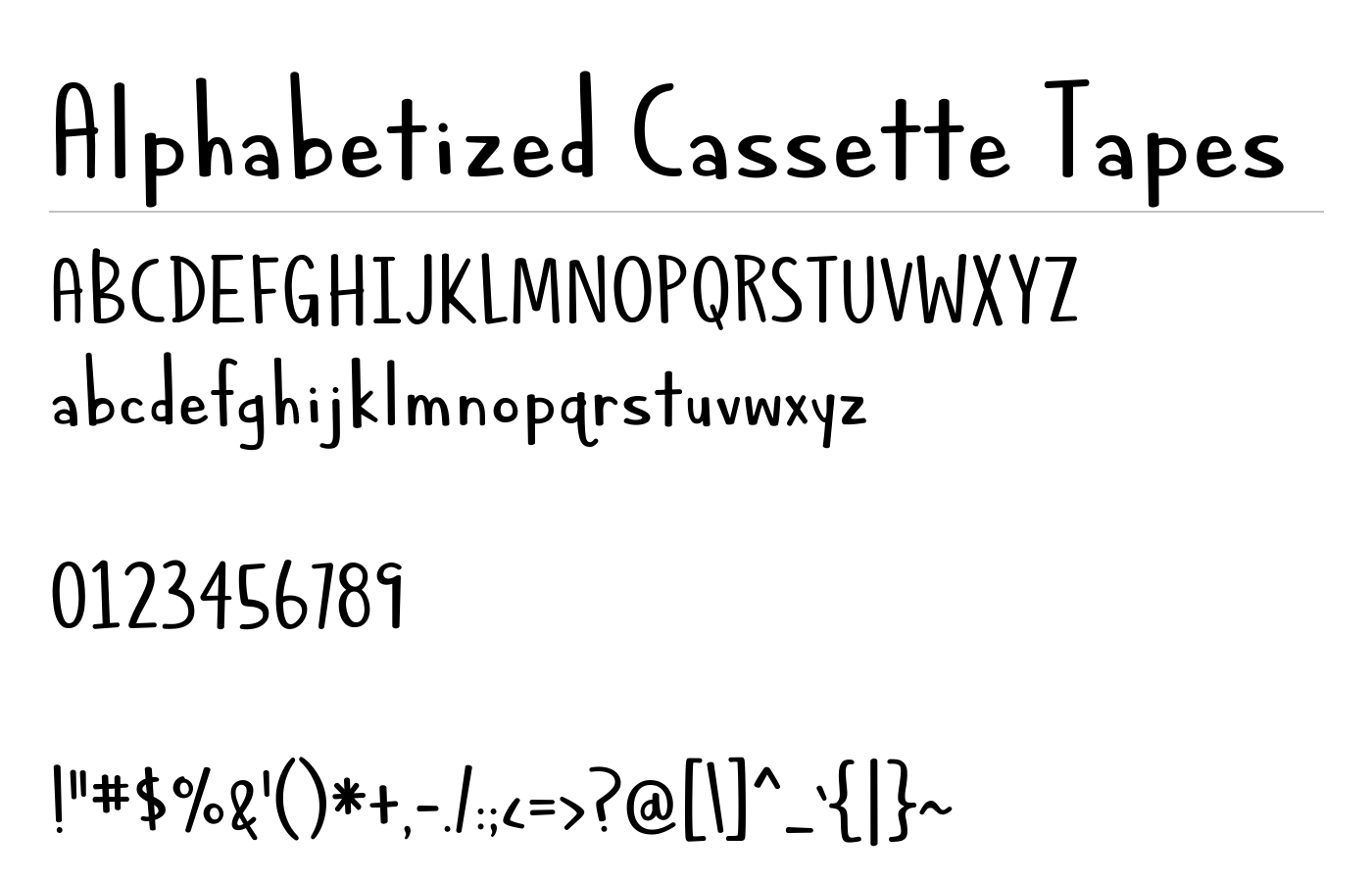
Alphabetized Cassette Tapes is a playful, hand-drawn sans serif font with a narrow width and tall x-height that gives it a quirky yet clear appearance. Its uneven stroke endings and slightly irregular letterforms evoke a casual, handmade feel, perfect for adding personality to creative projects, children’s designs, or informal branding. This font works well in headlines, logos, and packaging where a fun, approachable style is desired.
Alphabetized Cassette Tapes Font
About Alphabetized Cassette Tapes Font
| Font family | Alphabetized Cassette Tapes Font |
| Designer | Brittney Murphy |